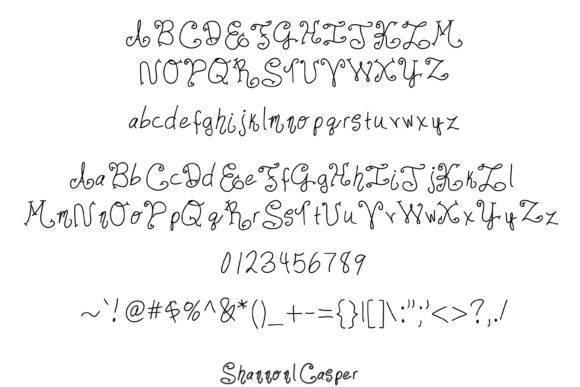
Introducing Cutie Pies Font: The Perfect Addition to Your Design Arsenal
Are you tired of using the same old fonts in your designs? Look no further! Cutie Pies Font is here to add a touch of playfulness and whimsy to your projects. This easy-to-use script font is perfect for crafters, designers, and anyone looking to add a personal touch to their work.
What is Cutie Pies Font?
Cutie Pies Font is a beautiful, hand-crafted script font that is designed to make your designs stand out. With its flowing curves and playful strokes, this font is perfect for a wide range of projects, from DIY crafts to professional designs. Whether you’re creating invitations, greeting cards, or social media graphics, Cutie Pies Font is sure to add a touch of personality to your work.
Key Features of Cutie Pies Font
- Easy to use: Cutie Pies Font is a straightforward and simple font to use, making it perfect for designers of all skill levels.
- Playful and whimsical: This font has a fun and carefree vibe that’s sure to add a touch of personality to your designs.
- Highly versatile: Cutie Pies Font can be used for a wide range of projects, from crafts to professional designs.
- Script font: This beautiful script font has flowing curves and strokes that will add a touch of elegance to your designs.
Who Can Benefit from Using Cutie Pies Font?
Cutie Pies Font is perfect for a wide range of designers and crafters, including:
- DIY crafters: If you love making your own crafts, such as cards, invitations, and decorations, Cutie Pies Font is a great addition to your design arsenal.
- Graphic designers: If you’re a professional graphic designer, Cutie Pies Font is a great way to add some personality to your designs and stand out from the crowd.
- Small business owners: If you run a small business, Cutie Pies Font can help you create professional-looking designs that will help you connect with your customers.
- Social media influencers: If you’re a social media influencer, Cutie Pies Font can help you create eye-catching graphics that will help you stand out on social media.
- Experiment with different sizes: Cutie Pies Font looks great in a variety of sizes, so don’t be afraid to experiment and find the perfect size for your project.
- Pair it with other fonts: Cutie Pies Font pairs well with a wide range of other fonts, so try pairing it with some of your favorite fonts to create a unique look.
- Use it for headings and titles: Cutie Pies Font is perfect for headings and titles, as it adds a touch of personality and whimsy to your designs.
| Font Name | Cutie Pies Font |
| Author | Shannon Casper |
Cutie Pies Font is a beautiful and versatile script font that’s perfect for designers and crafters of all skill levels. With its playful and whimsical vibe, this font is sure to add a touch of personality to your designs. Whether you’re creating DIY crafts or professional designs, Cutie Pies Font is a great addition to your design arsenal. So why wait? Download Cutie Pies Font today and start adding a touch of whimsy to your designs!